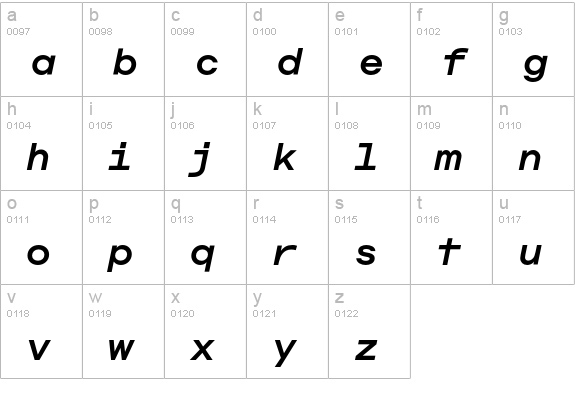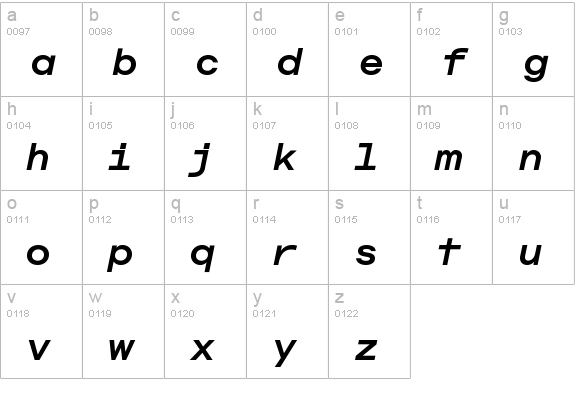
AvantGardeMonoEF-BoldIta Font Details
AvantGardeMonoEF-BoldIta is a modern and stylish font that exudes sophistication and elegance. Its bold and italic style adds a touch of flair to any design, making it perfect for eye-catching headlines or attention-grabbing text. The unique geometric shapes and sleek lines of this font make it stand out from the crowd, giving your projects a contemporary edge. What's even better is that AvantGardeMonoEF-BoldIta is available for free download at FontsMarket.com! This means you can easily access this versatile and striking font to elevate your designs without any cost. Whether you're working on a website, branding materials, or print designs, AvantGardeMonoEF-BoldIta is sure to make a bold statement and leave a lasting impression. Download it now and unleash your creativity with this exceptional font.